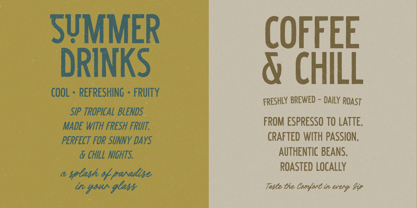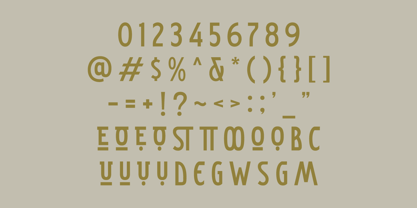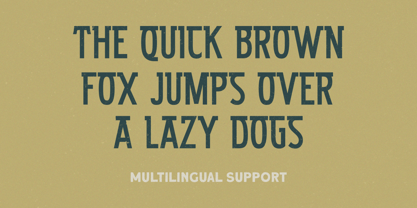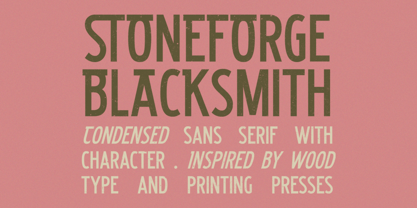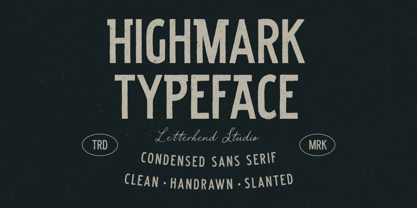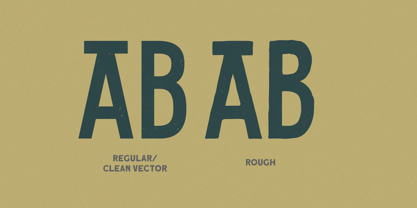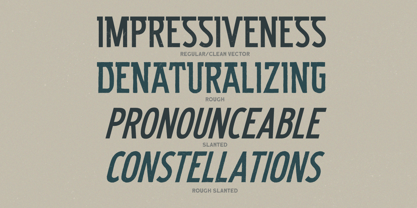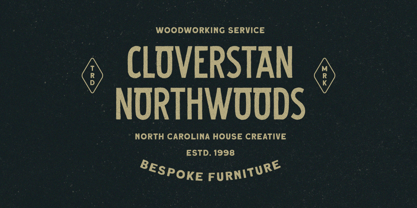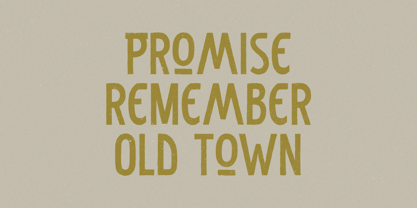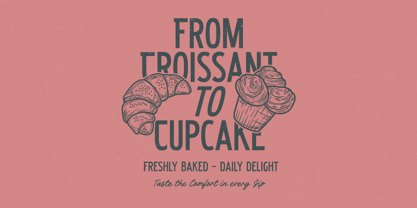
Highmark
by Letterhend
The Highmark Font Family was designed by Hendry Juanda and published by Letterhend. Highmark contains 4 styles and family package options. More about this family
Highmark Typeface is a clean, condensed sans serif with a touch of vintage craftsmanship. Its tall, narrow letters and hand-drawn texture give it a bold yet authentic look that works beautifully for logos, packaging, posters, and headlines. Available in both regular and slanted styles, this font blends classic charm with a modern handcrafted feel — perfect for projects that need strong character and timeless appeal. Features : Uppercase & lowercase Numbers and punctuation Alternates & Ligatures Multilingual Support PUA encoded
Designers: Hendry Juanda
Current Foundry: Letterhend